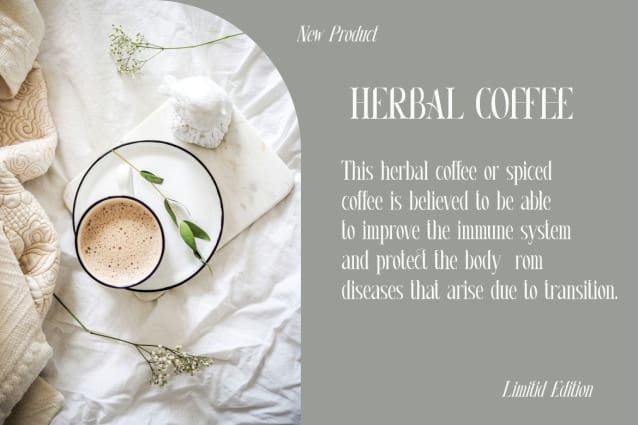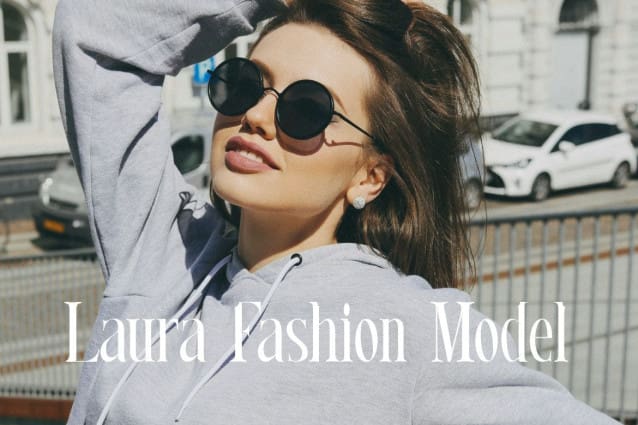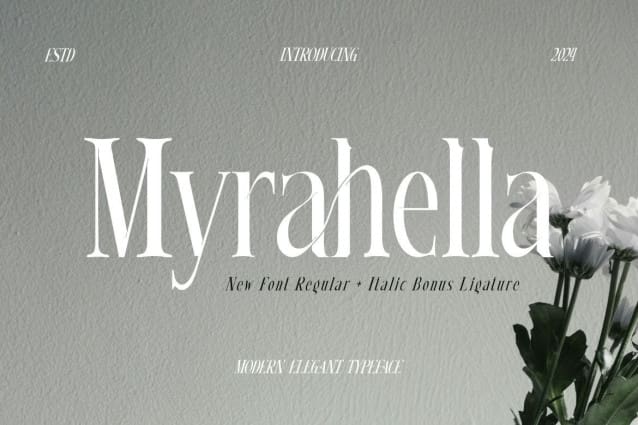
Myrahella Font
Myrahella Font – Modern Elegant Typeface is a modern and authentic font. Perfect for professional and product branding needs, this font is suitable for any branding project such as quotes, logos, blog headers, posters, ribbons, letters, invitations, stationery, etc… Designed to be versatile and flexible that can be used on a variety of projects and media. extraordinary in a variety of contexts.